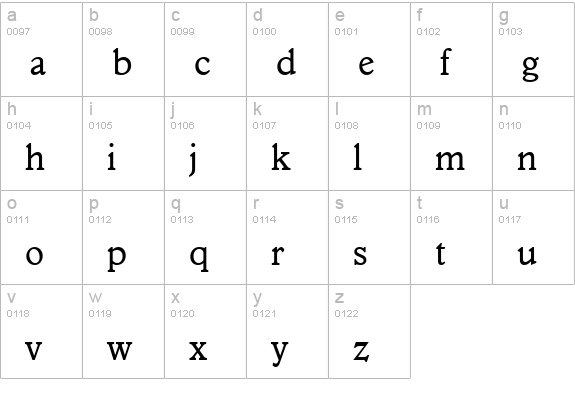
VeroneseBook Font Details
VeroneseBook is a stunning and elegant font that exudes sophistication and style. With its clean lines and beautifully crafted letterforms, this font is perfect for adding a touch of class to any design project. From invitations and branding materials to magazine layouts and web designs, VeroneseBook will make your work stand out from the crowd. But what makes VeroneseBook even more special is that it is absolutely free. That's right, you can download this incredible font at no cost from FontsMarket.com. We believe that great design should be accessible to everyone, and VeroneseBook is our way of making that a reality. With VeroneseBook, you can unleash your creativity without worrying about the price tag. Whether you're a professional designer or simply someone with a passion for beautiful typography, this font is sure to inspire and impress. Its versatility allows it to be used in a wide range of projects, from elegant wedding invitations to sleek corporate presentations. So why wait? Download VeroneseBook today and experience the beauty and versatility of this amazing font. With its free availability at FontsMarket.com, you have nothing to lose and everything to gain. Start creating stunning designs that will leave a lasting impression with VeroneseBook.